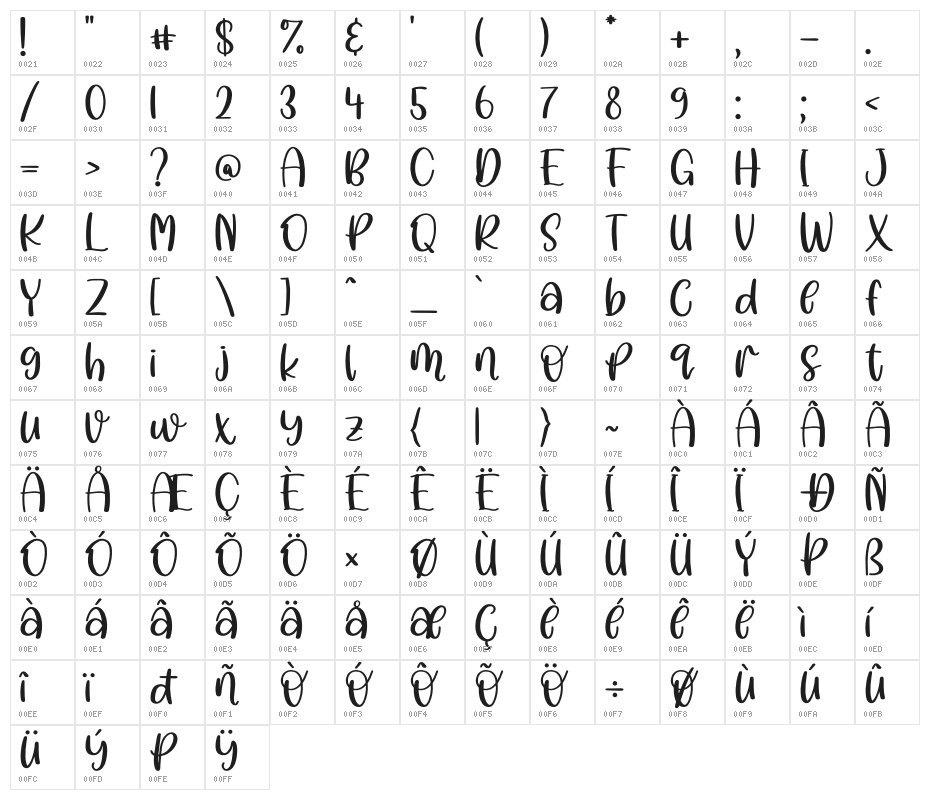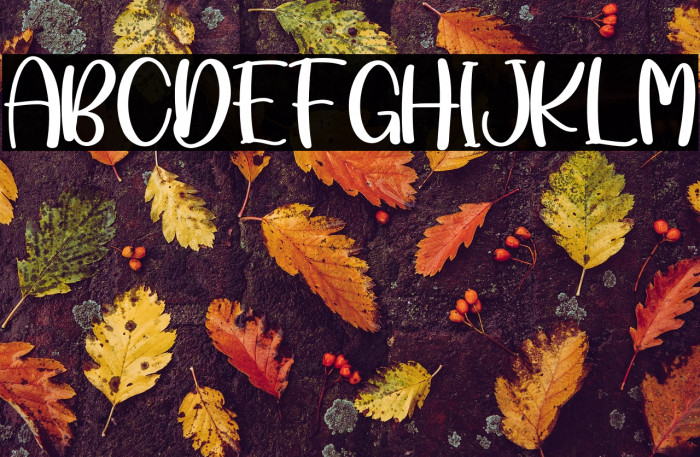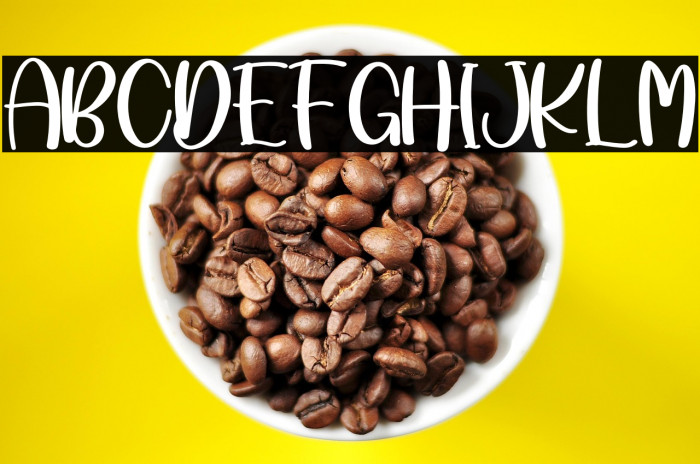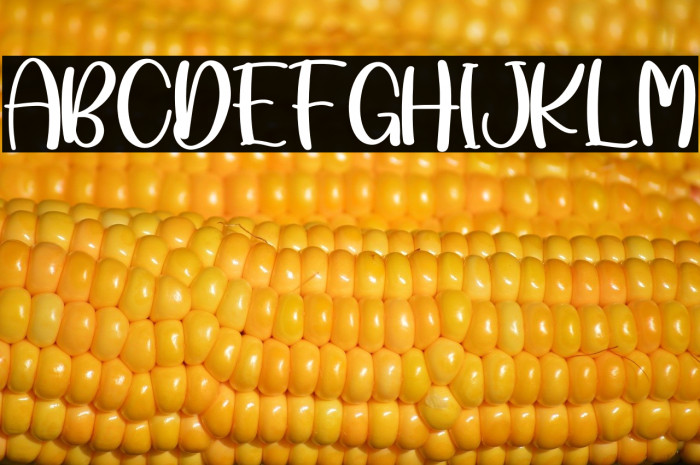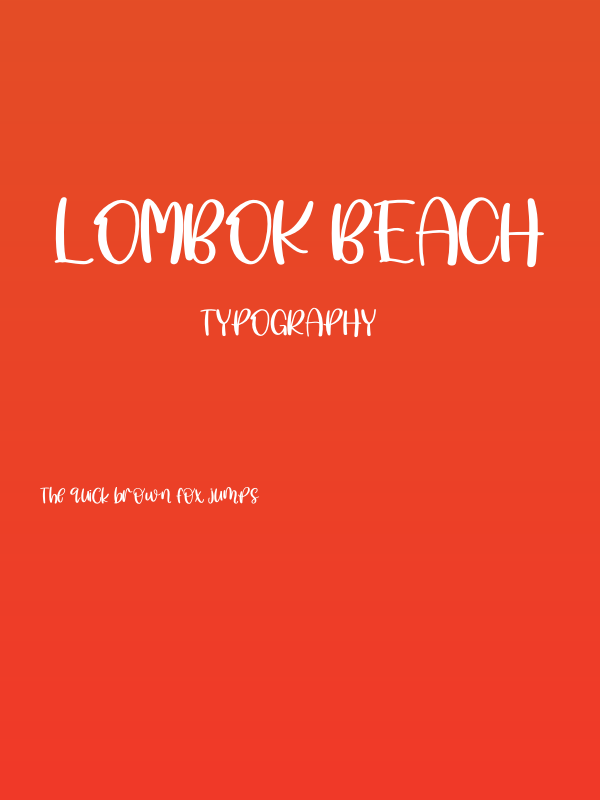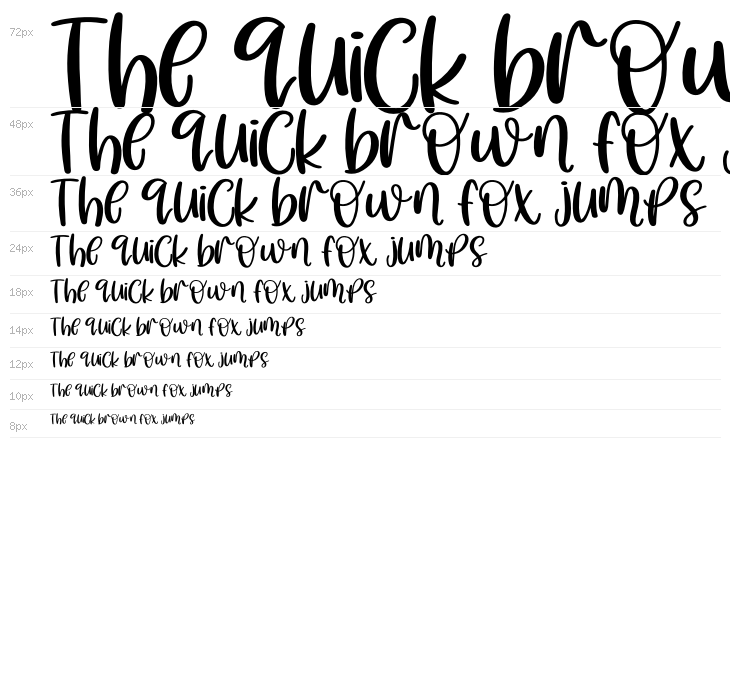
Lombok Beach Font
Lombok Beach Description
This font features a playful and energetic script style, characterized by its bold, flowing strokes and lively curves. The uppercase letters are tall and slightly narrow, with a whimsical flair that adds a sense of movement. The lowercase letters maintain a consistent rhythm, with rounded forms and smooth connections that enhance readability. Numbers and special characters follow the same dynamic style, making them suitable for a variety of creative applications. The overall appearance is both modern and approachable, perfect for projects that require a touch of personality and charm.